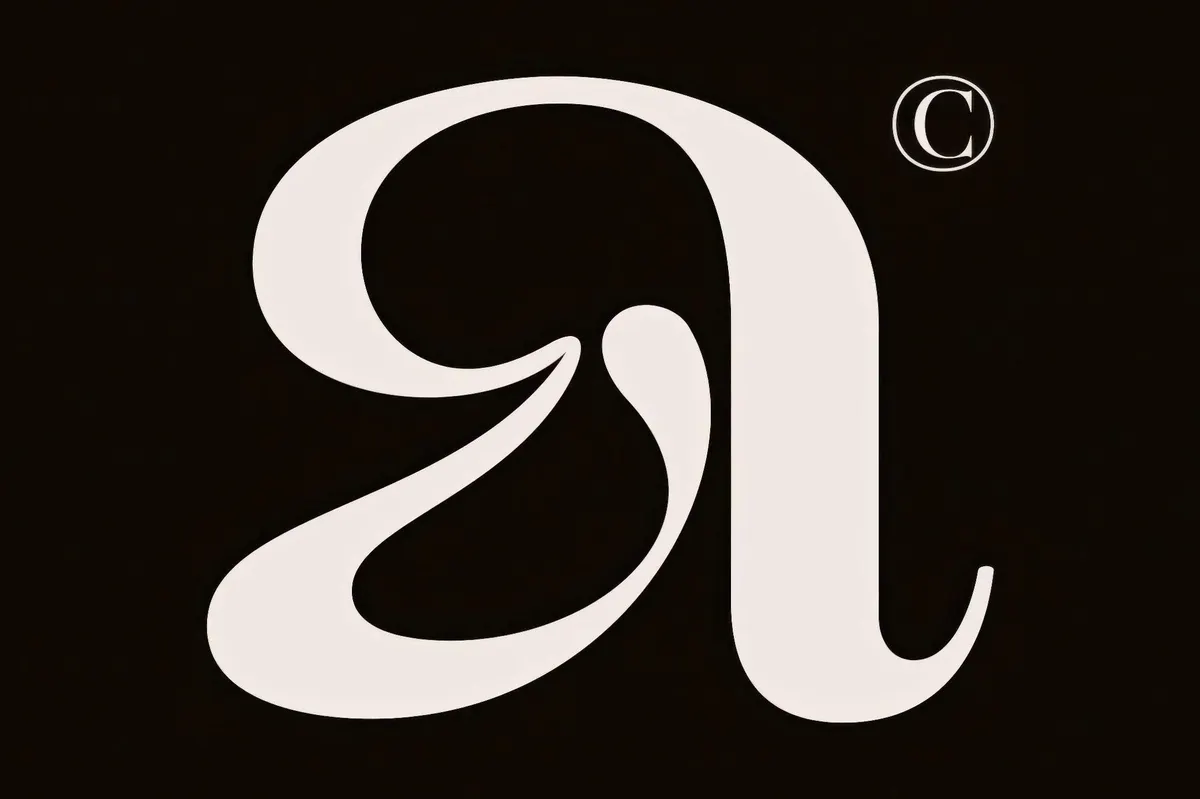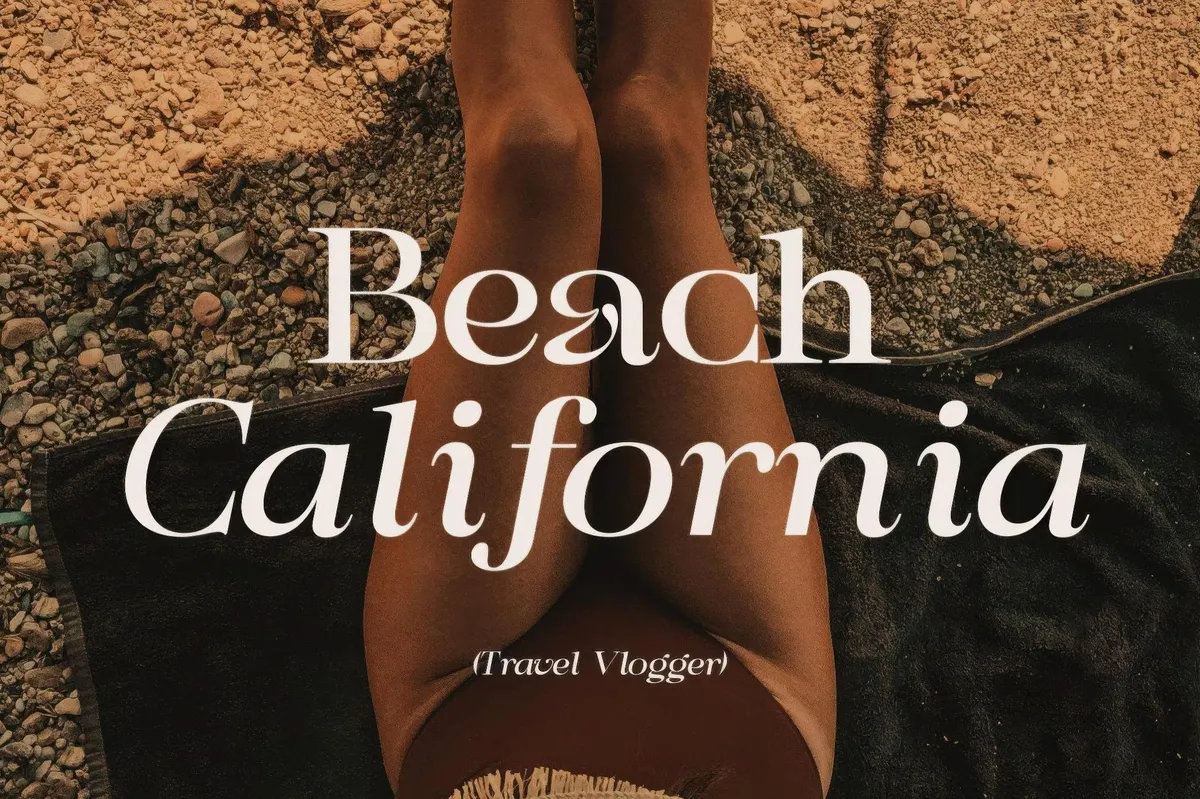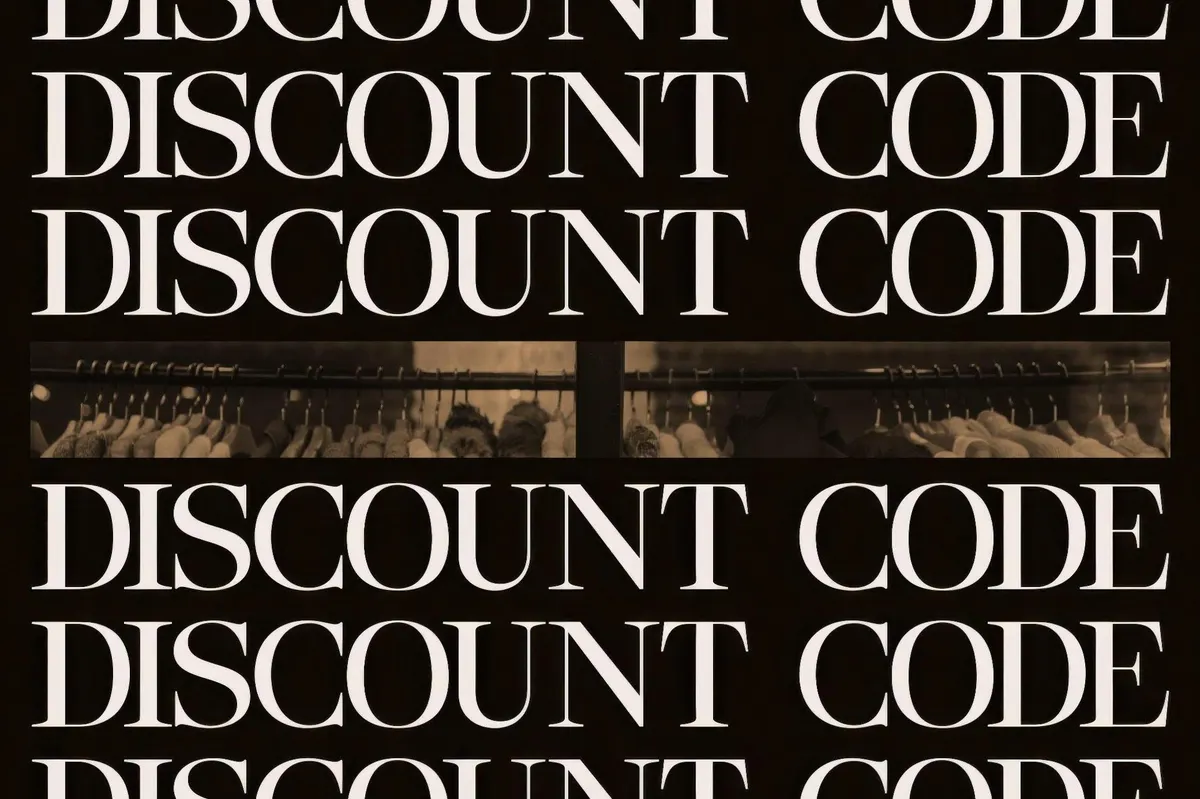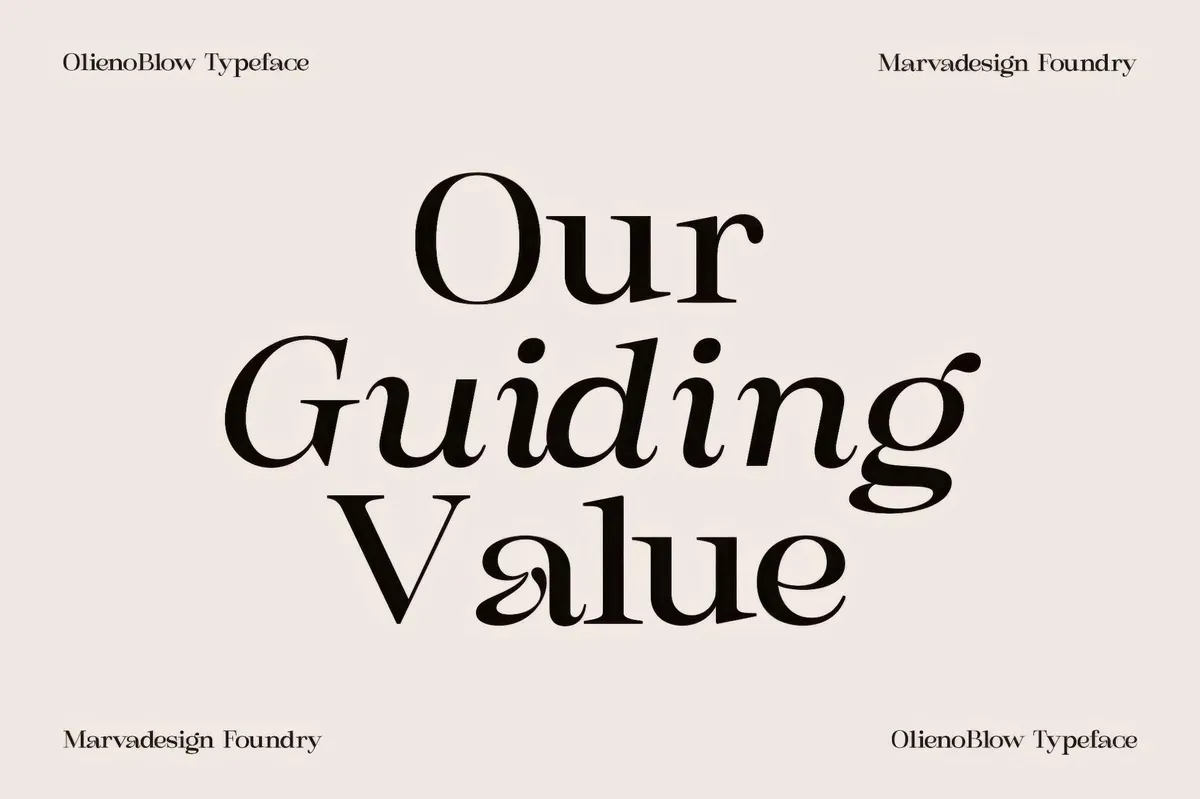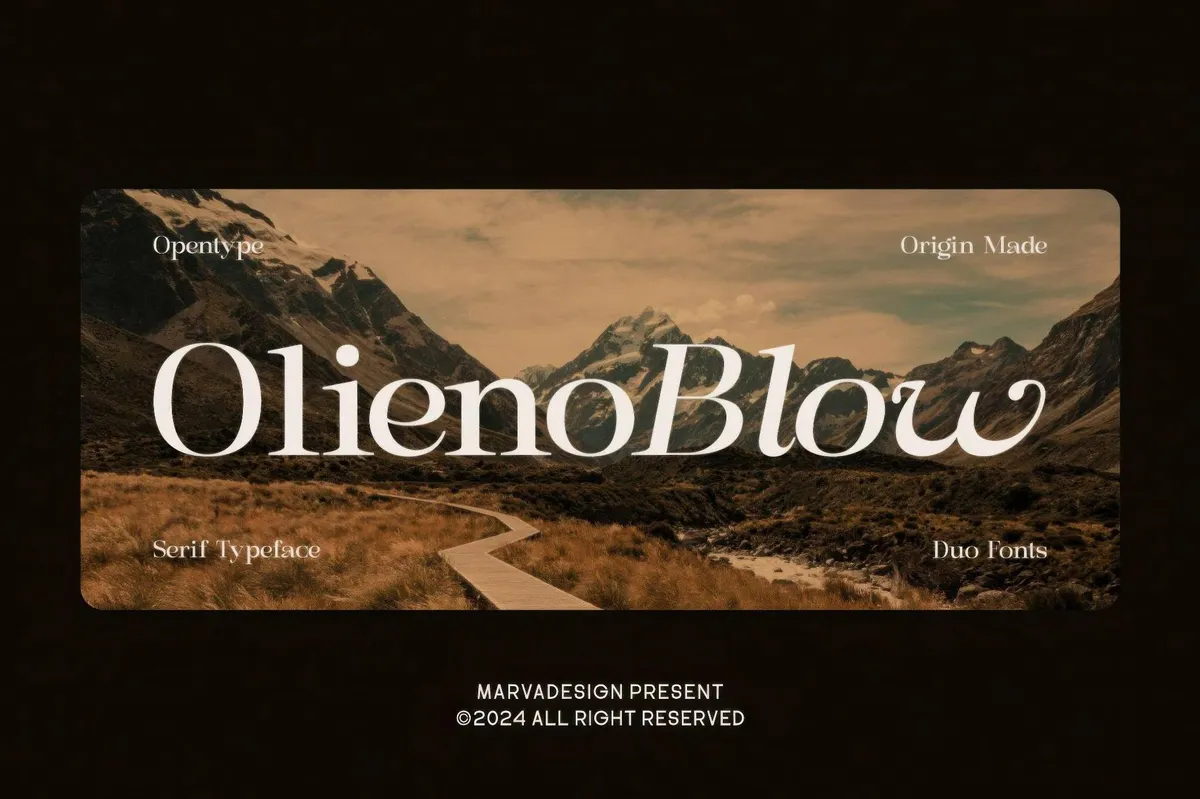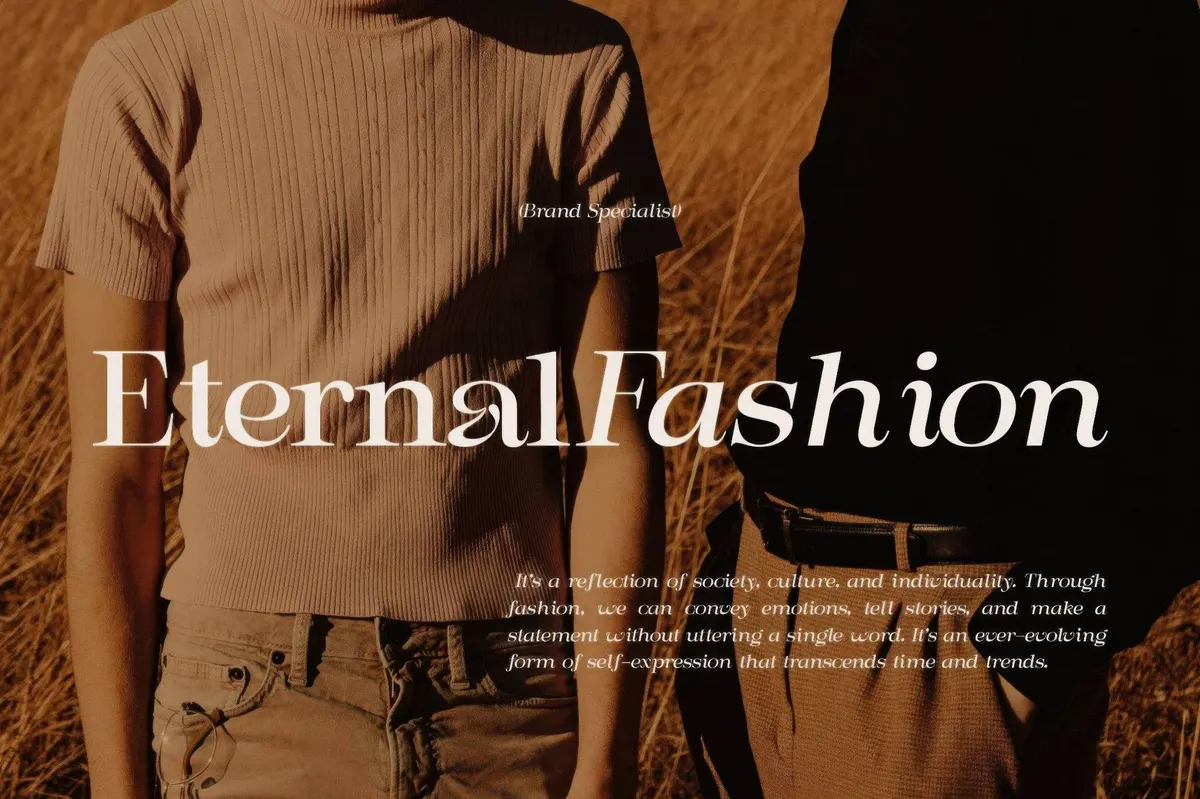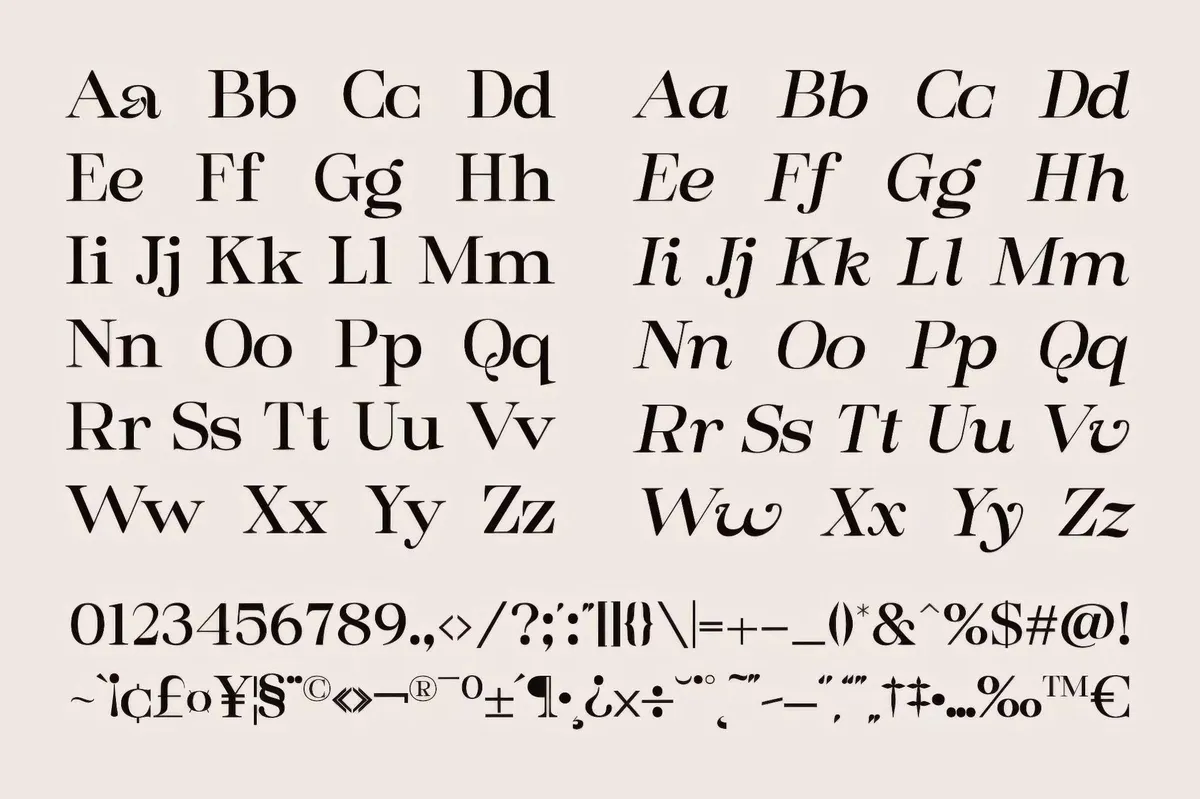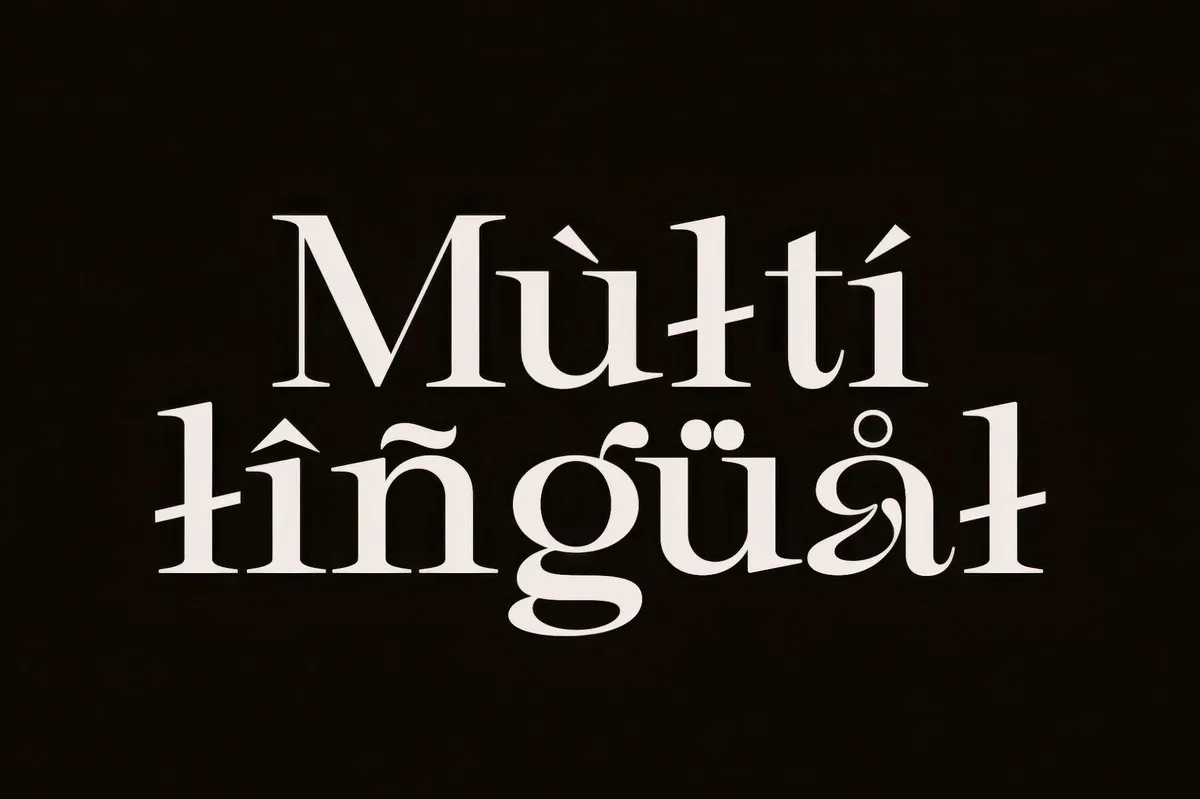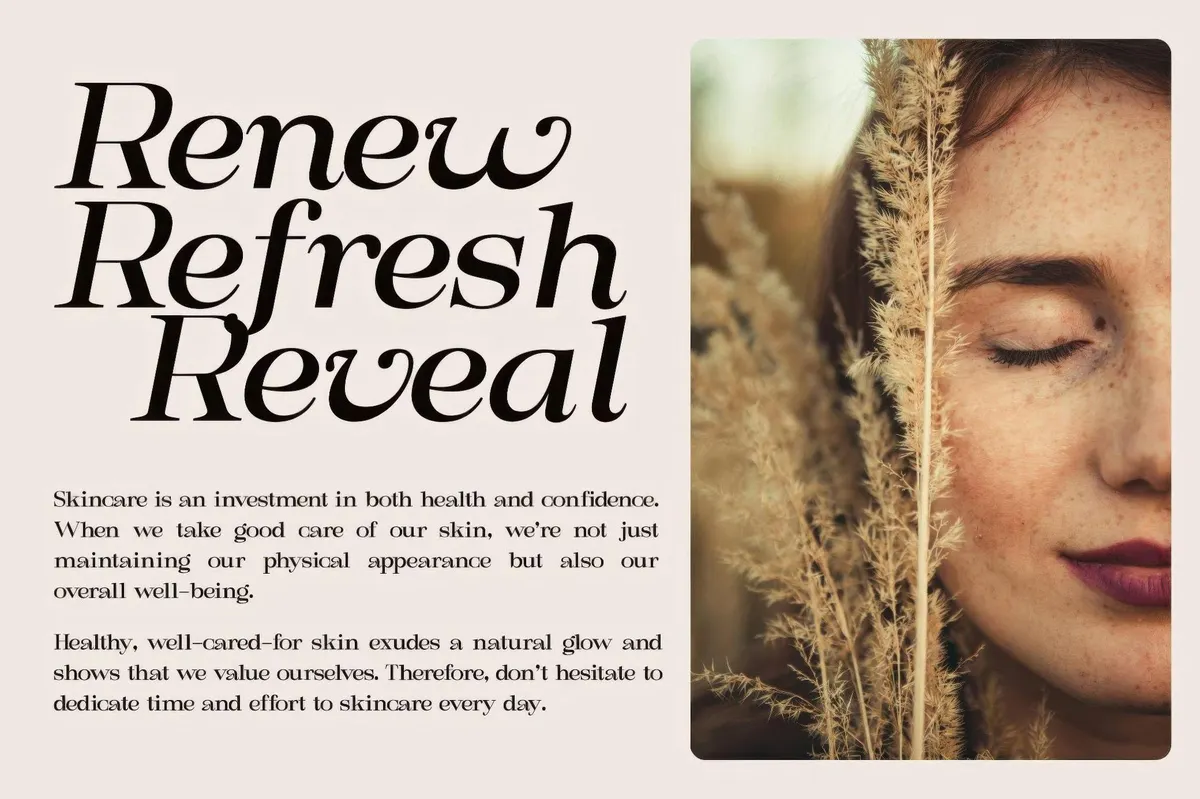
Olieno Blow — A Serif Display
Meet Olieno Blow, a serif duo that knows how to keep things classy without taking itself too seriously. The regular style is all about effortless sophistication — clean, upright, and a little bit fancy, like a perfectly tailored trendy suit. But then comes the italic, tilting just enough to add a dash of whimsy, like a knowing smirk at the end of a sentence. Together, they create a dynamic pairing, perfect for anything from elegant invitations to high-end branding that wants a little extra charm. The set of glyphs includes uppercase, lowercase, numerals, punctuation, and multilingual support for ultimate versatility across projects and platforms.